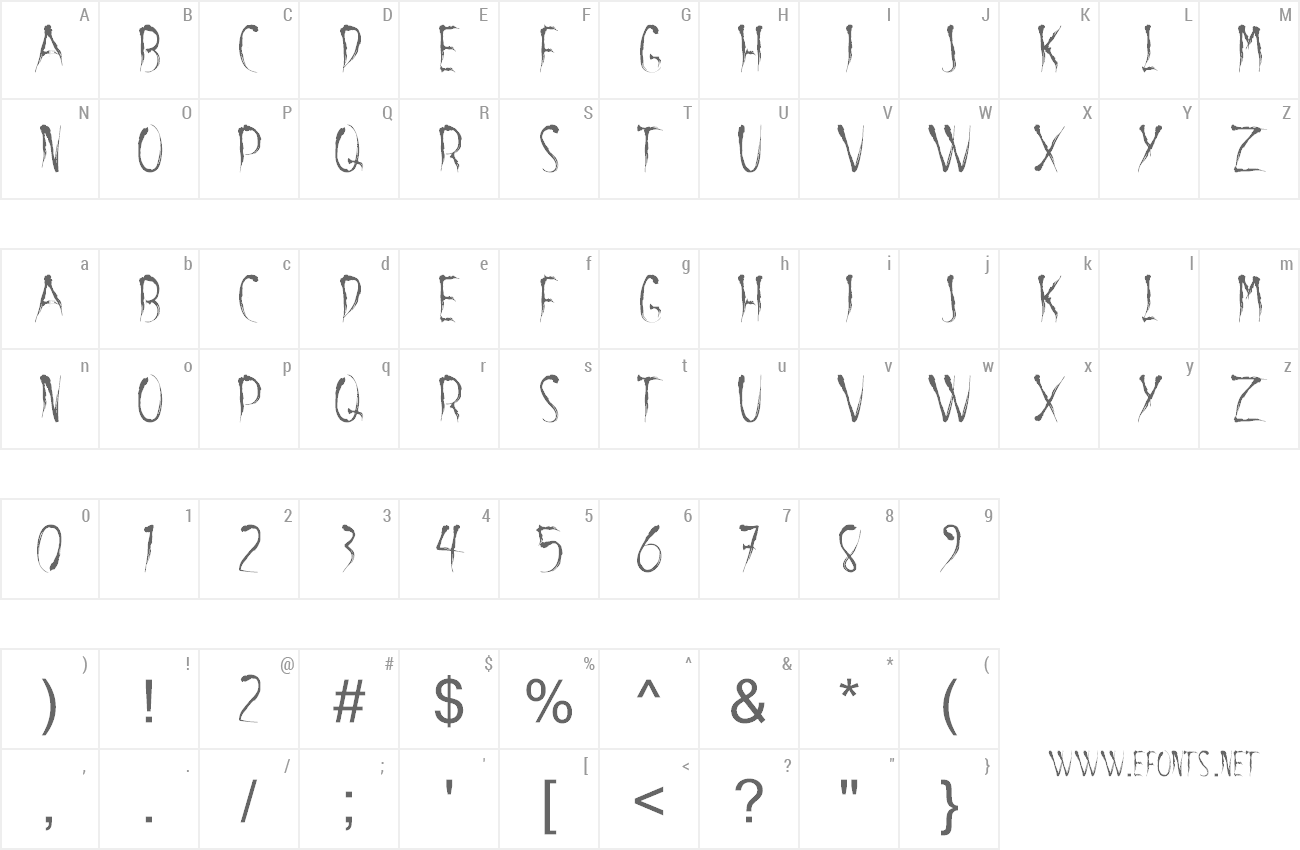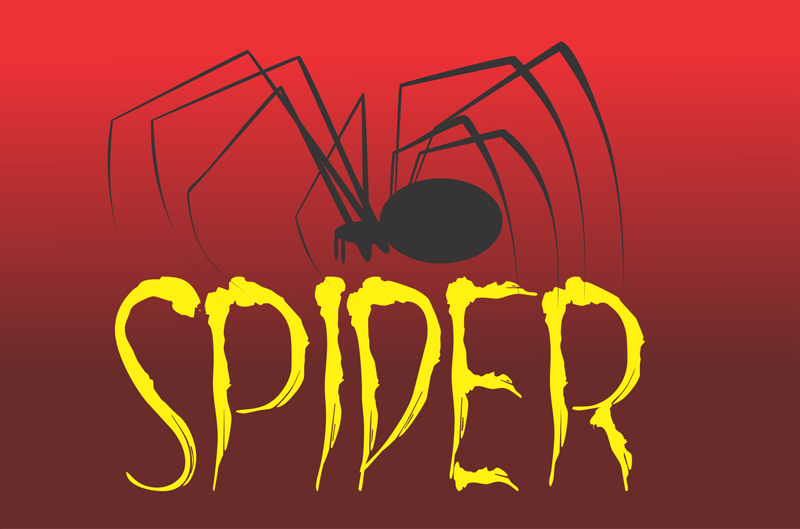
Preview and download Aracnoide Font. Created by Grafito Design in Fancy Horror styles with 100% Free license.
Esta fuente formaba parte de la familia spider... pero es aun mejor... This font was part of the spider family ... but it's even better |